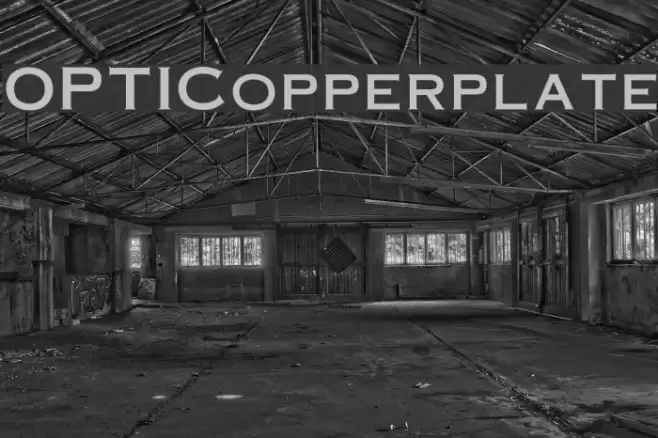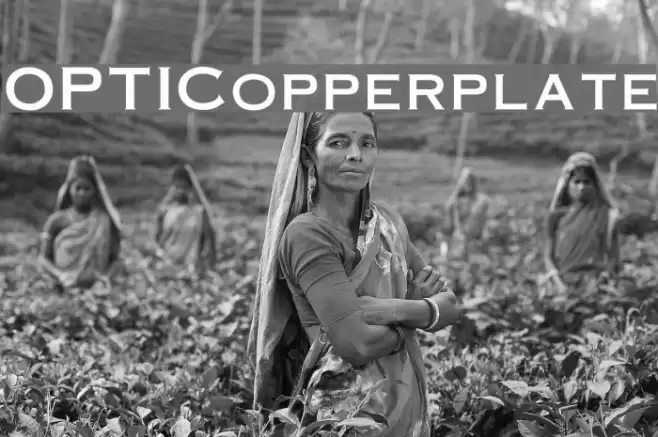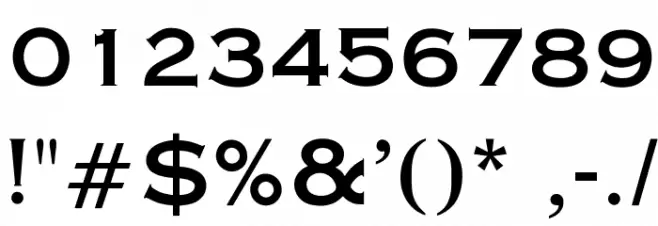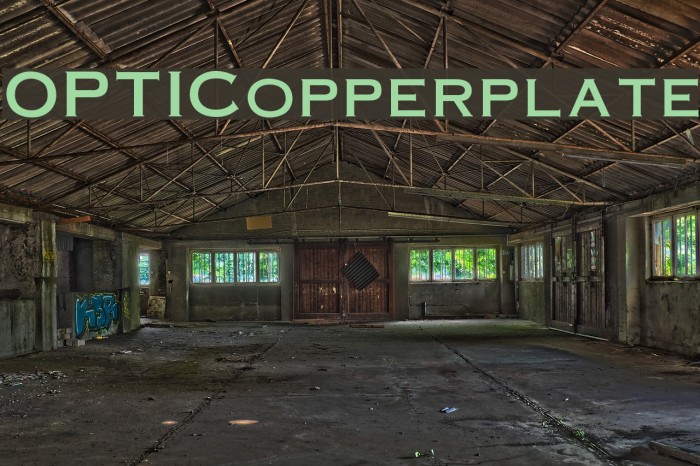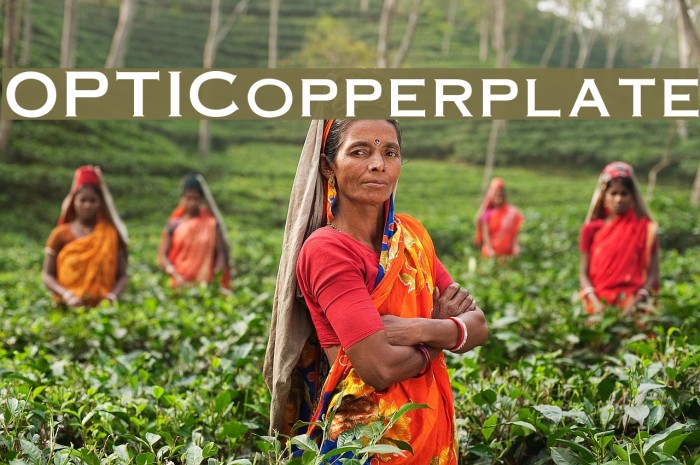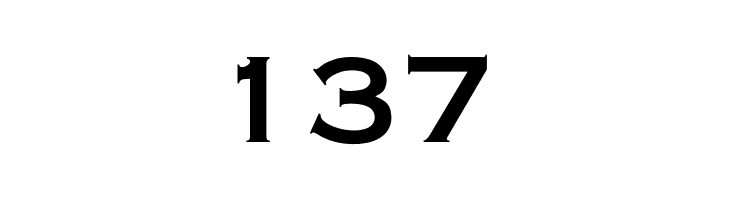
OPTICopperplate Font
OPTICopperplate Description
This font features a bold and authoritative style with strong, clean lines and a modern aesthetic. The uppercase letters are particularly striking, with a uniform height and width that convey a sense of stability and professionalism. The lowercase letters maintain a similar structure, ensuring consistency across text. The numerals are clear and easy to read, making them suitable for various applications. Special characters are well-defined, adding versatility to the font's usage. Overall, this font exudes a contemporary feel while retaining a classic touch, making it ideal for both digital and print media.
A bold, modern font with clean lines and a professional appearance from Uncategorized fonts.
- Proposed Projects: Ideal for corporate branding, editorial headlines, digital interfaces, and print media.
- Use Case: Headlines, Logos, Branding